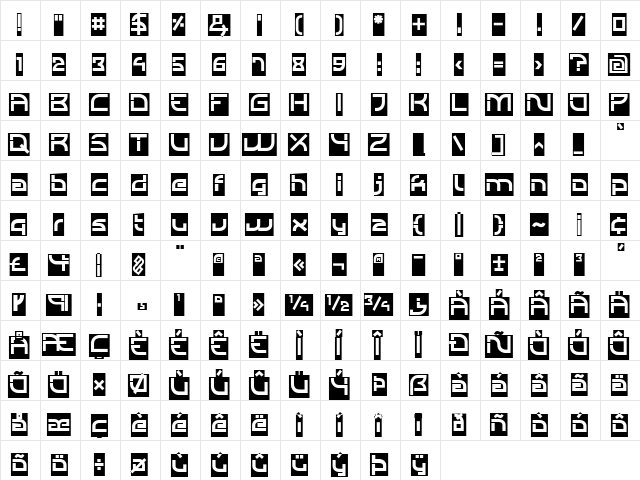
Individigital Subtitle Regular
Design Context for Individigital Subtitle Typeface
Individigital Subtitle channels digital-age aesthetics through its sharp, structured letterforms — ideal for brands that want to signal innovation.
Pro Tip: Use Individigital Subtitle in combination with a neutral sans for body text. Let it define the brand voice in headlines while keeping reading comfortable elsewhere.